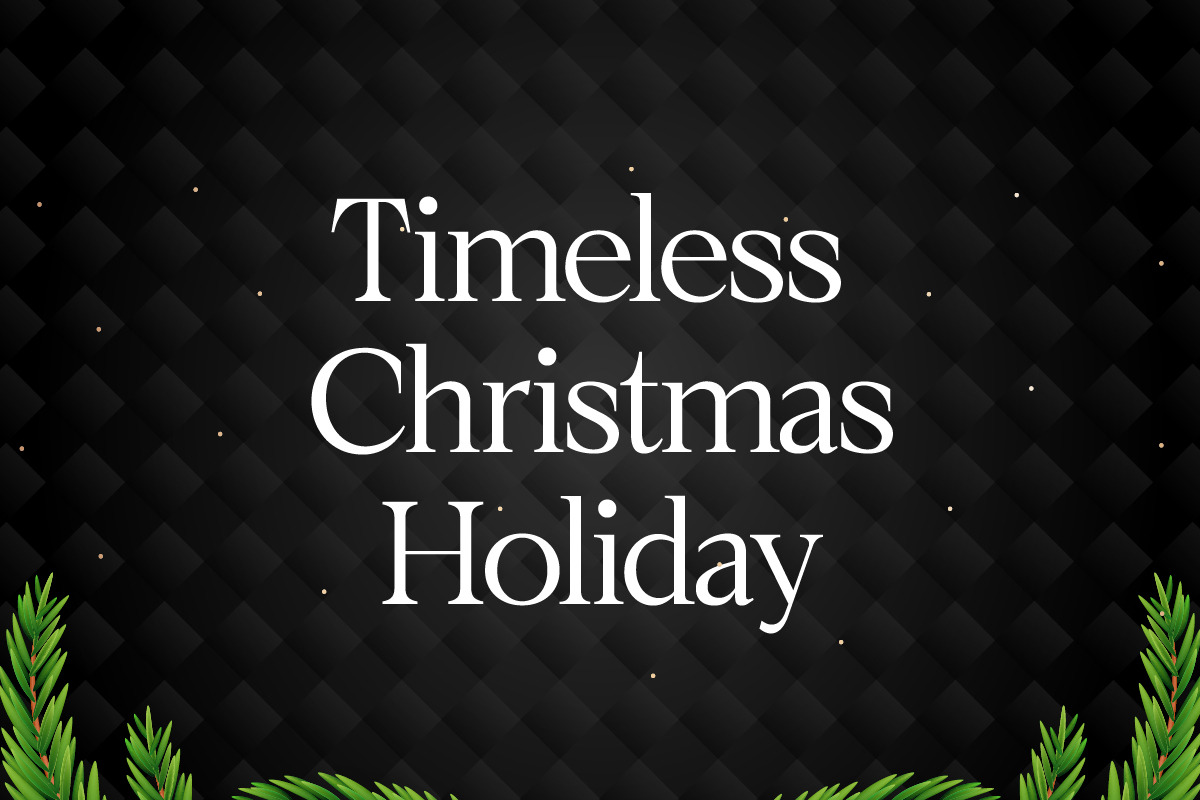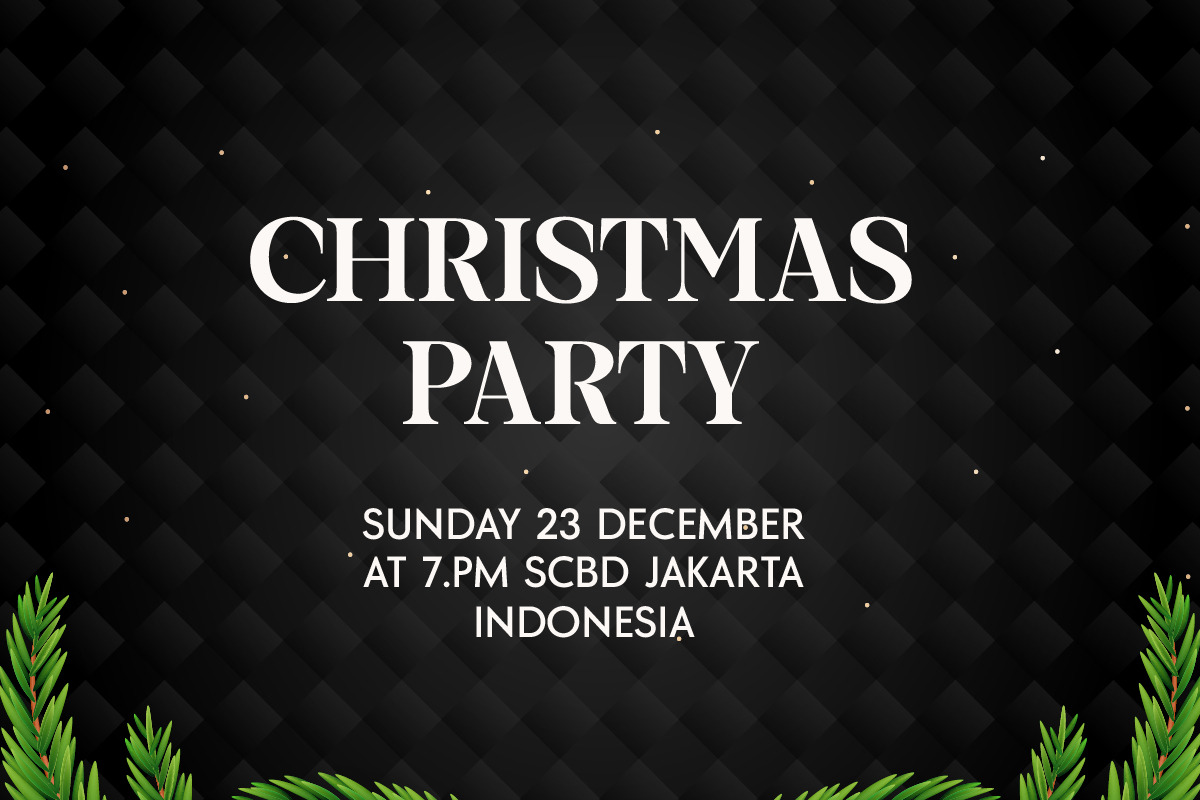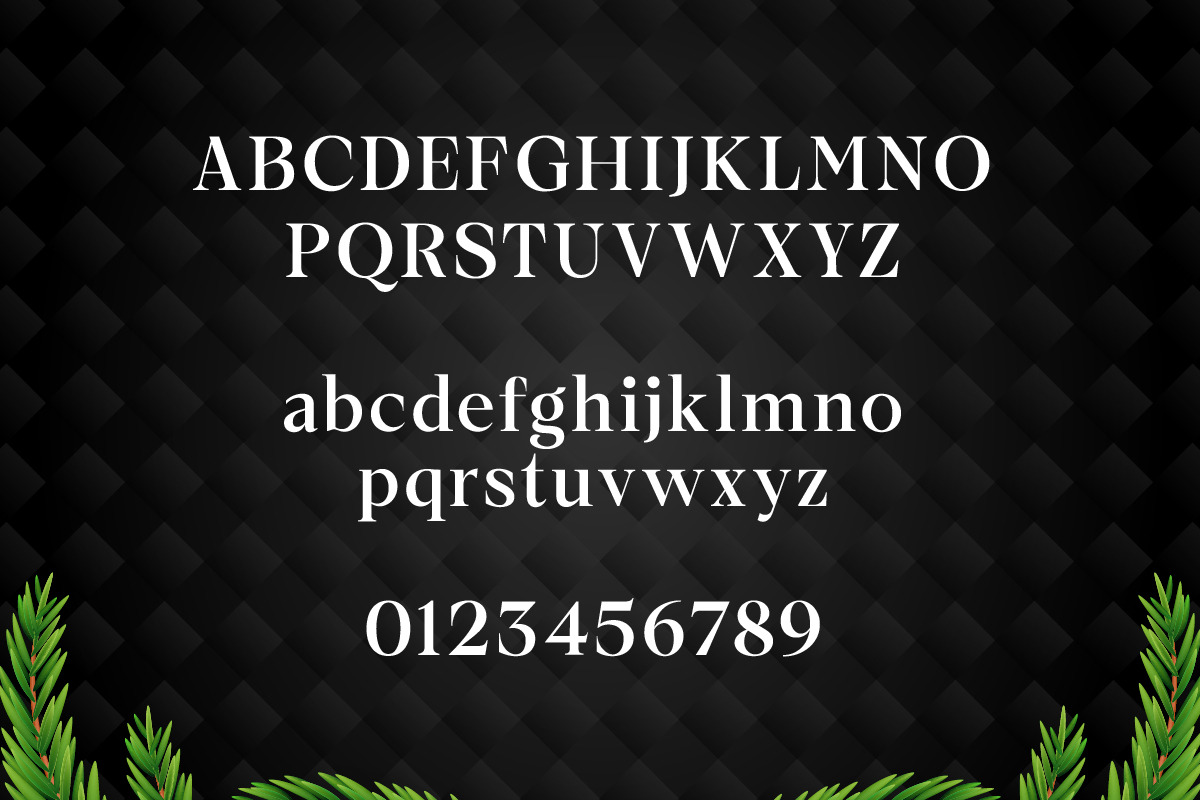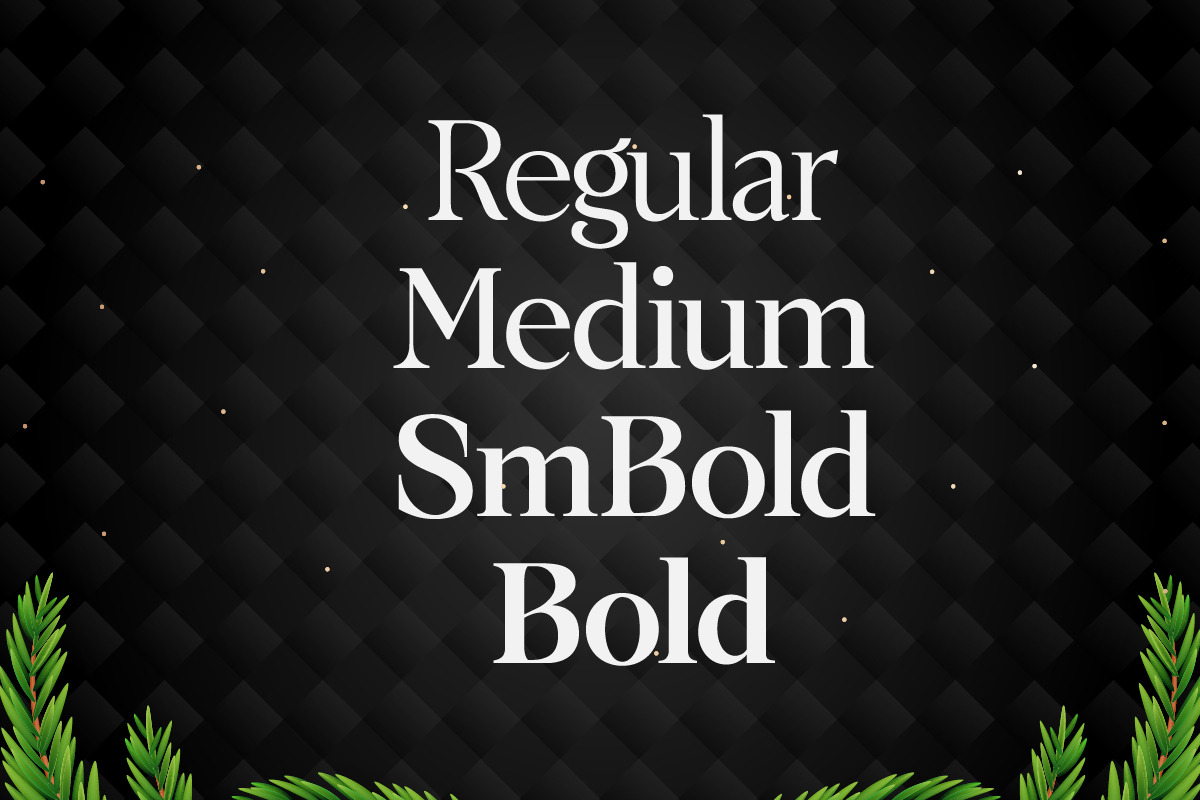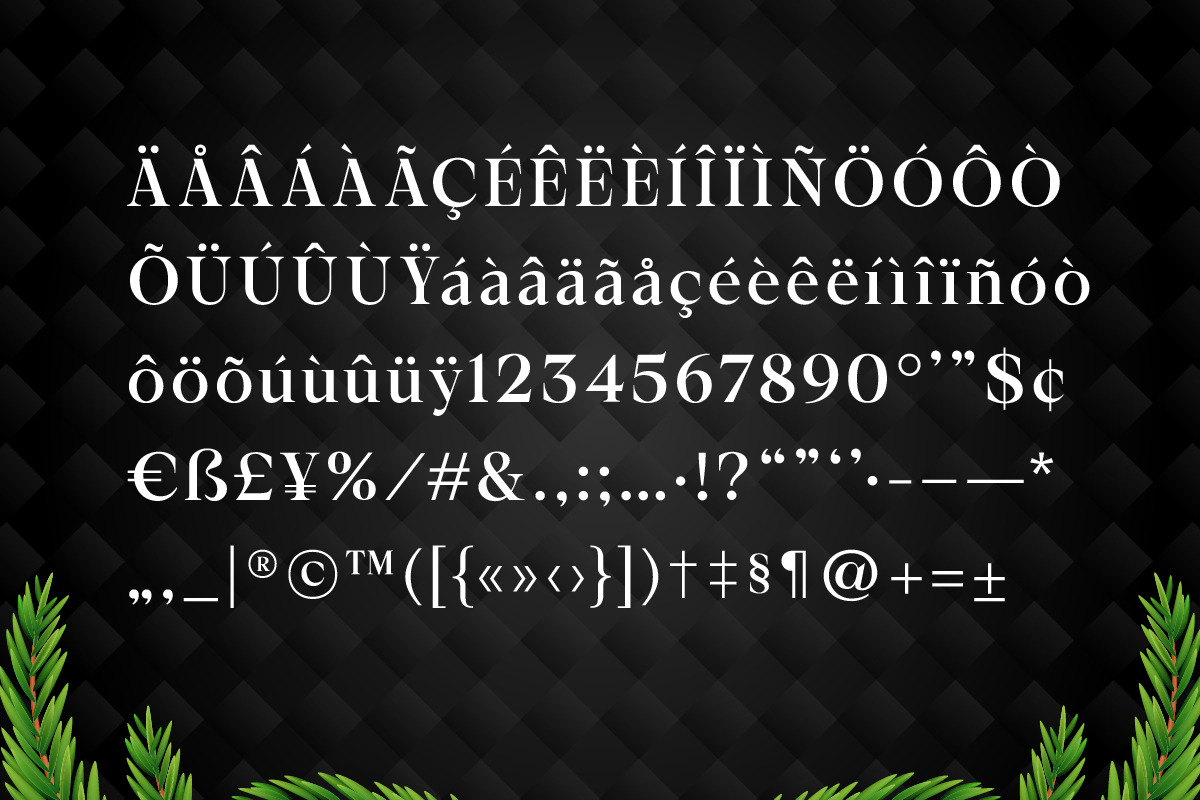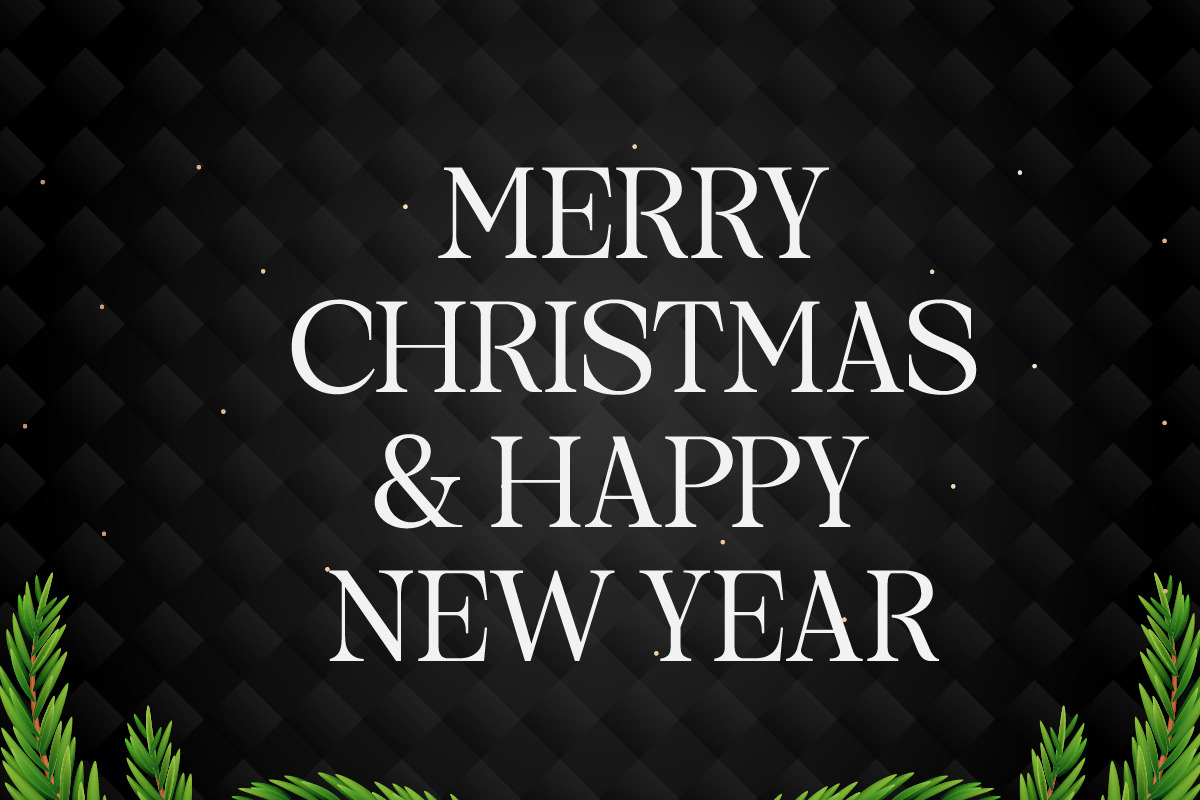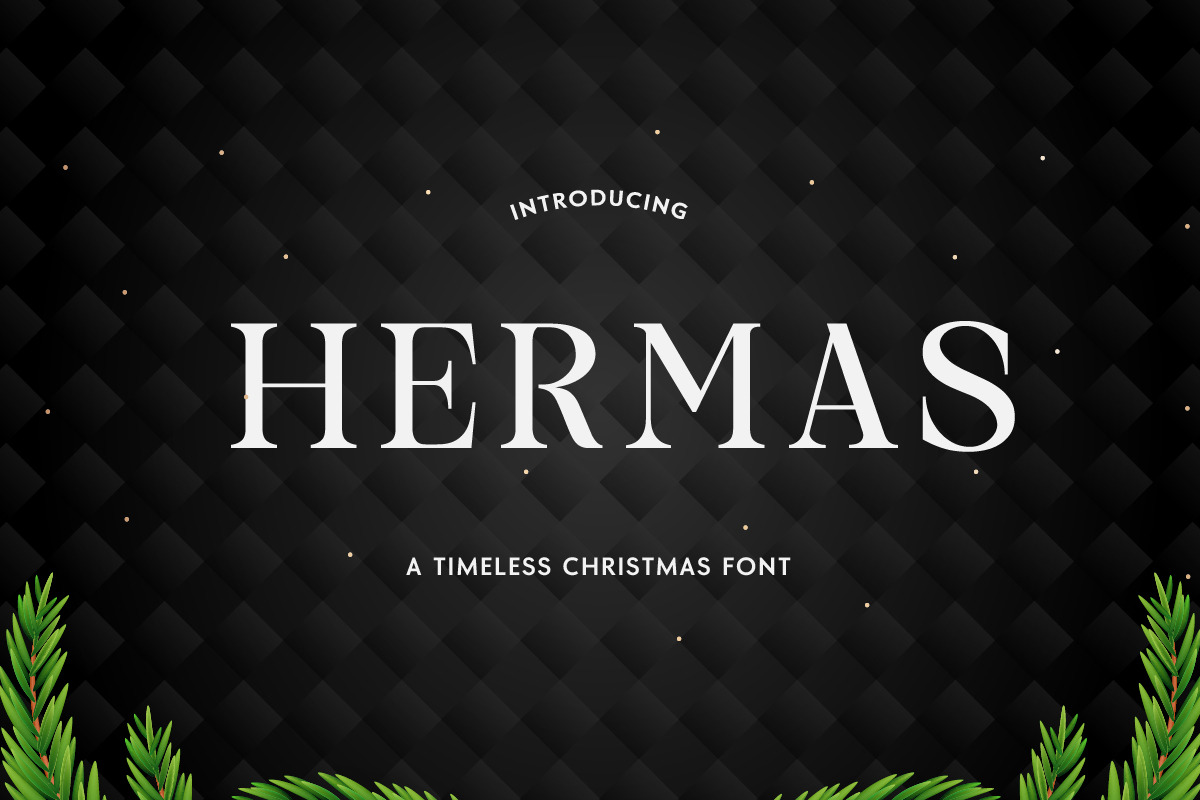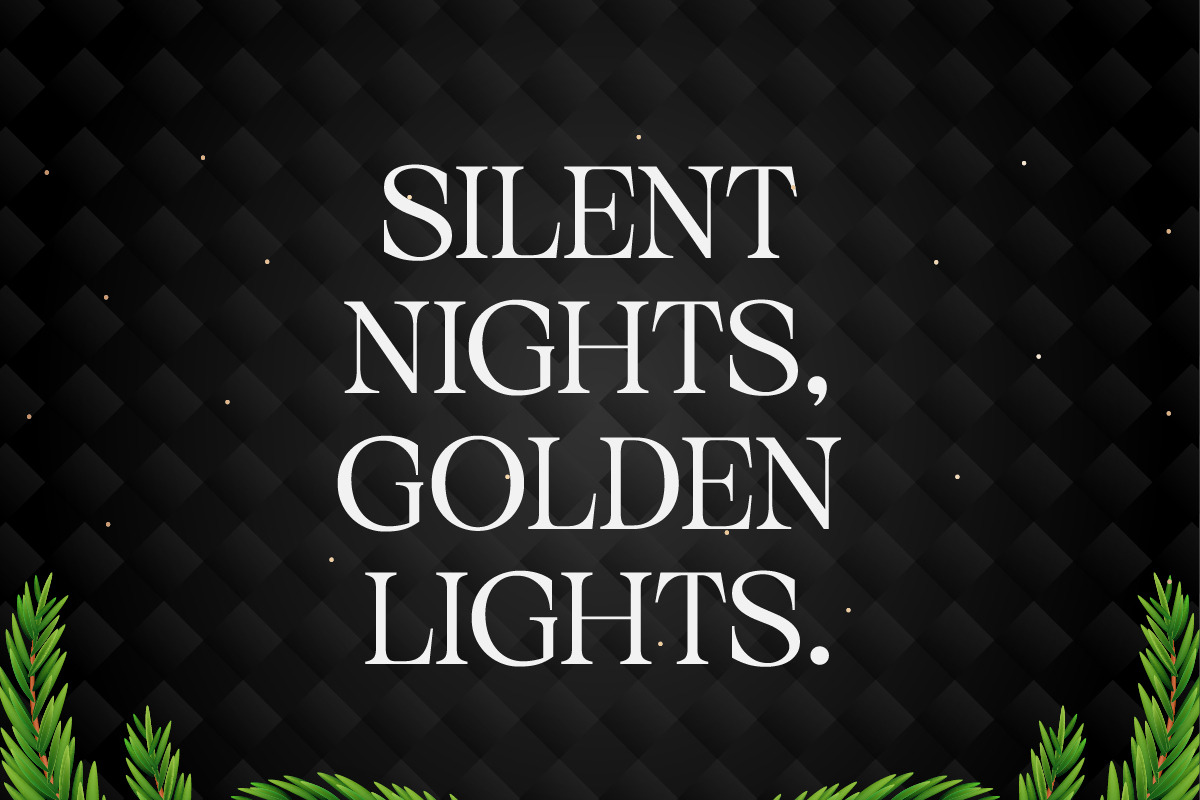
Hermas – Christmas Font
Hermas is a timeless serif font designed to bring elegance and warmth to every festive creation. With 4 refined styles — Regular, Medium, Semi Bold, and Bold — Hermas offers perfect versatility for your holiday-themed designs.
This elegant serif typeface combines simplicity and sophistication, making it ideal for Christmas and New Year celebrations, luxury branding, invitations, packaging, and editorial layouts. Hermas exudes a high-end aesthetic, crafted for designers who value classic beauty with a modern twist. Whether for festive logos, greeting cards, or premium product branding, Hermas ensures every word shines with charm and refinement.
Perfect for: Christmas designs, New Year posters, elegant logos, holiday cards, luxury packaging, and brand identity projects.